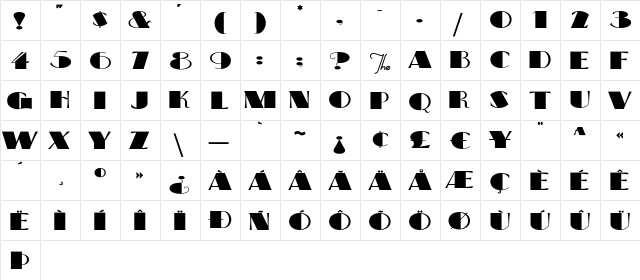
BigApple Regular Font Preview
BigApple Regular
BigApple Regular Font Details
Design Context for BigApple Typeface
BigApple is a composed and adaptable typeface that performs quietly and consistently across a wide range of design contexts.